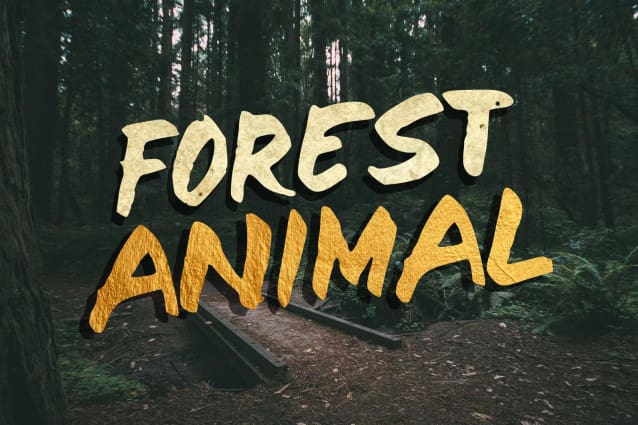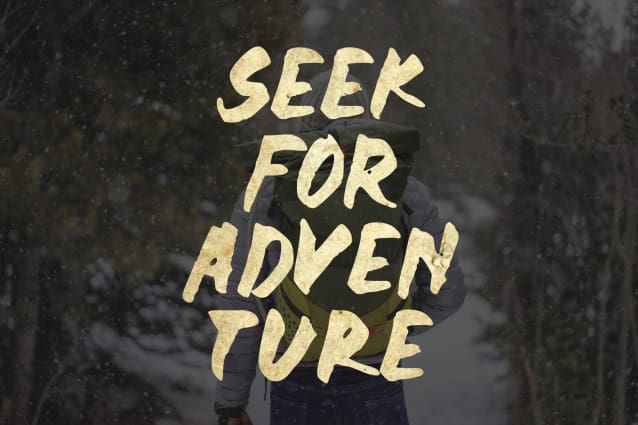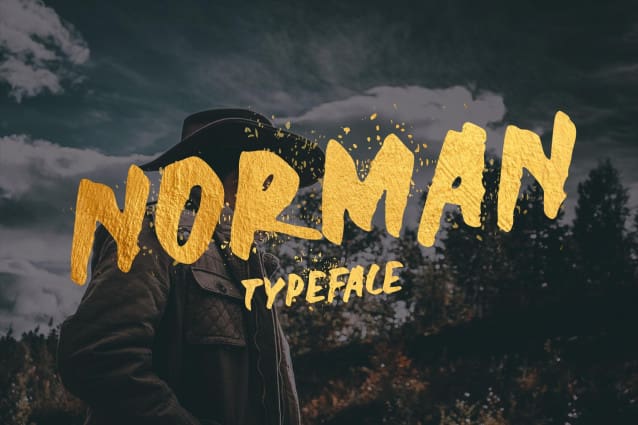
Norman Brush Font
Norman Brush Font is new handwritten font brush, elegant and vintage feel character set. To create the beautiful combination, just mix the uppercase and lowercase then mix with the alternative glyphs and playing with swash.